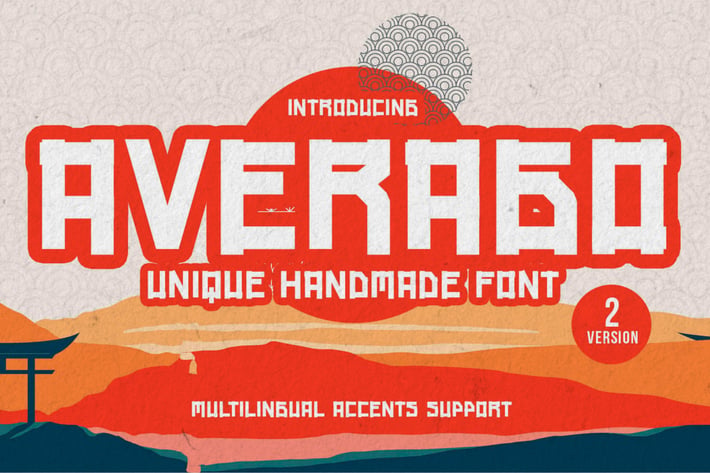
Averago - Unique Handmade Font
Introducing of our new product Averago it is a Unique Handmade Font and also that will make your designs look modern, display font.
Can make it easier to convey the message in your design. Use for awesome display, labeling, movie sceen, poster, movie title,quotes, posters, DIY projects, branding, packaging, greeting cards, websites, photography overlays, signs, window art, tags and so much more!